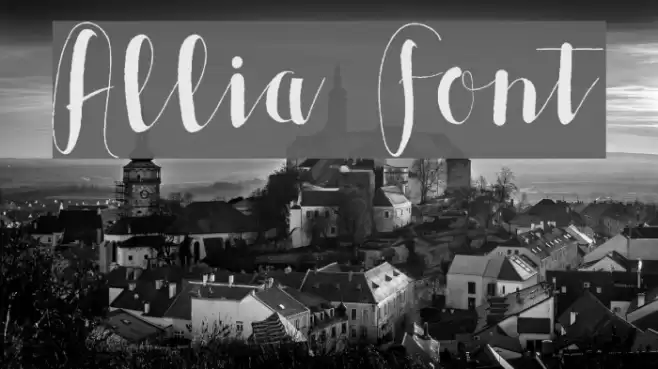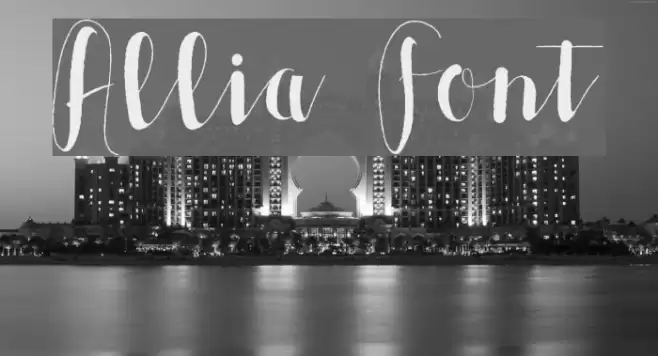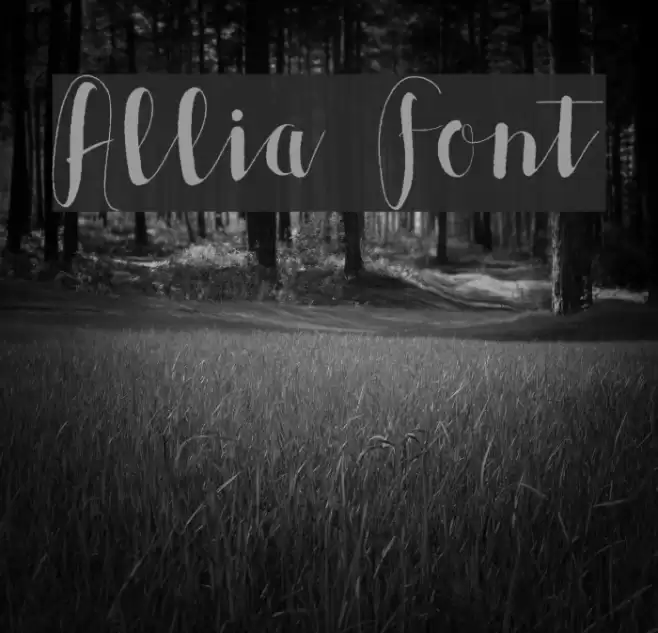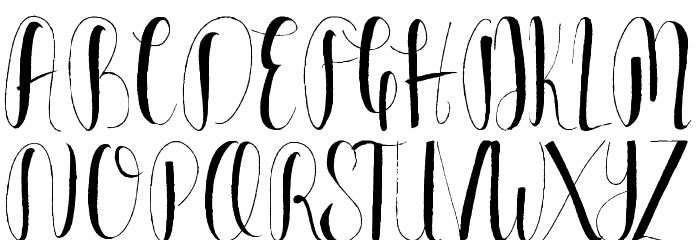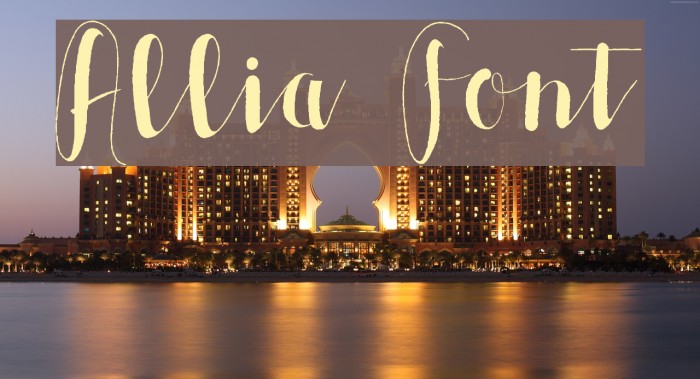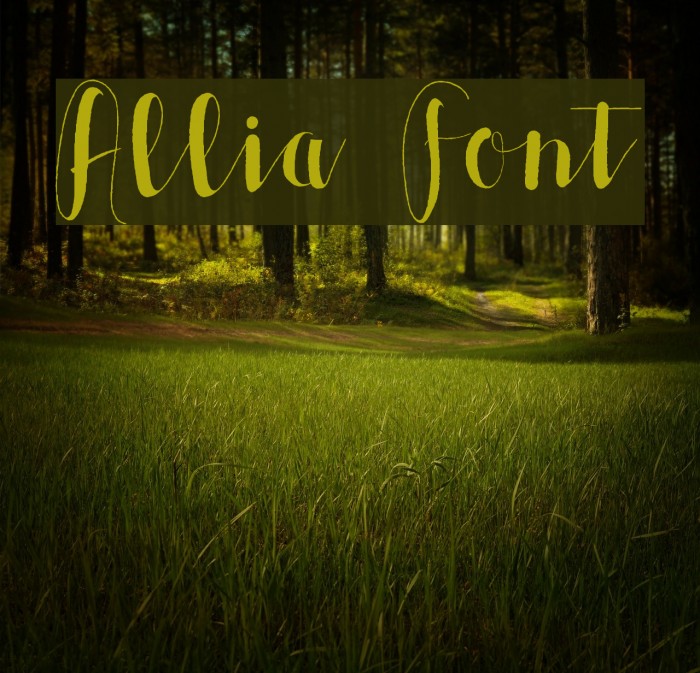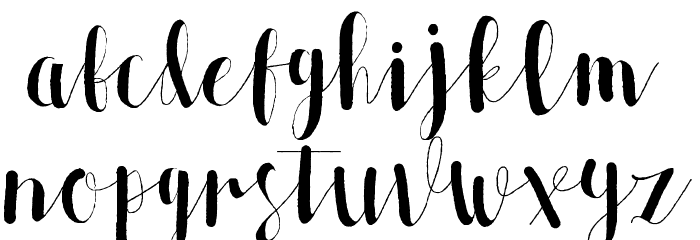
Allia Font
Allia Description
This font features an elegant and flowing script style, characterized by its sweeping curves and delicate strokes. The uppercase letters exhibit a graceful, elongated form, while the lowercase letters maintain a consistent fluidity, enhancing the overall aesthetic. The font's design incorporates a high contrast between thick and thin lines, adding a dynamic and sophisticated touch. Its calligraphic nature is reminiscent of traditional handwriting, yet it maintains a modern appeal. The characters are well-spaced, allowing for readability while preserving the artistic flair. This font is ideal for projects that require a touch of elegance and creativity.
An elegant, flowing script font with high contrast and graceful curves from Uncategorized fonts.
- Proposed Projects: Wedding invitations, branding, greeting cards, and elegant packaging.
- Use Case: Logos, Invitations, Decorative text